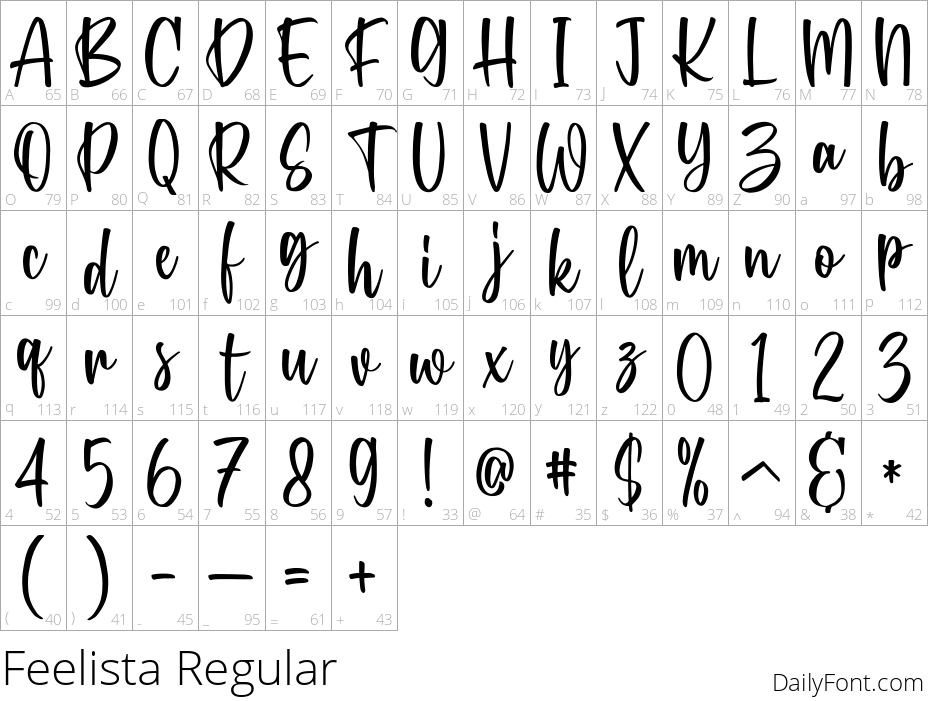
Feelista
Feelista is a magical handwritten font carefully created with a touch of elegance. This font is the perfect fit for making original and outstanding designs. Feelista blends whimsical swoops with refined letterforms, delivering warmth, personality, and a luxurious feel to your typography. Its delicate strokes invite curiosity while maintaining legibility, making it ideal for logos, branding elements, and memorable headlines.
Designed for designers who crave distinction, Feelista shines in branding, invitations, posters, packaging, and editorial layouts. Use it to craft chic wedding invitations, eye-catching social media graphics, magazine covers, or website headers that stand out in search results and on feeds. Pair it with clean sans serifs for contrast, or set it in all caps for a confident, modern look.
With versatile spacing and smooth curves, Feelista remains legible at various sizes, ensuring your message lands clearly across print and digital projects. It supports versatile styling - swashes, alternates, and ligatures - to tailor the mood from playful to refined. Whether you design a brand story, product packaging, or boutique signage, Feelista adds a signature touch that elevates any creative concept.